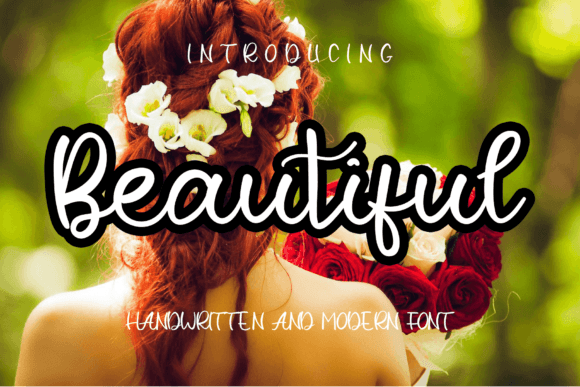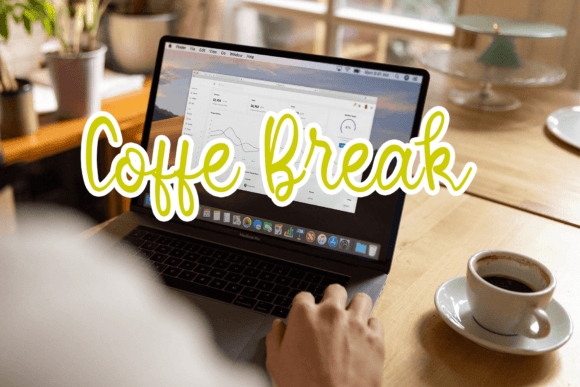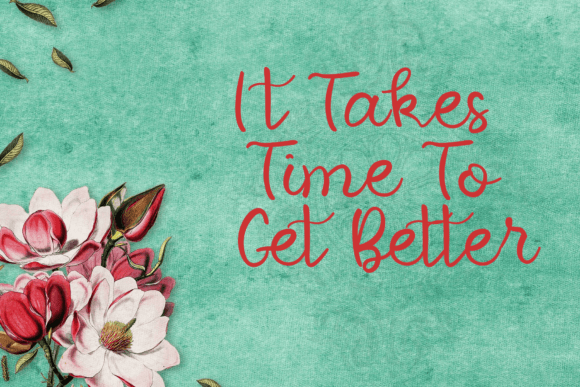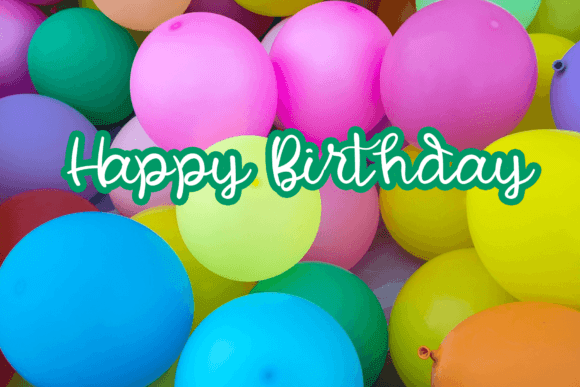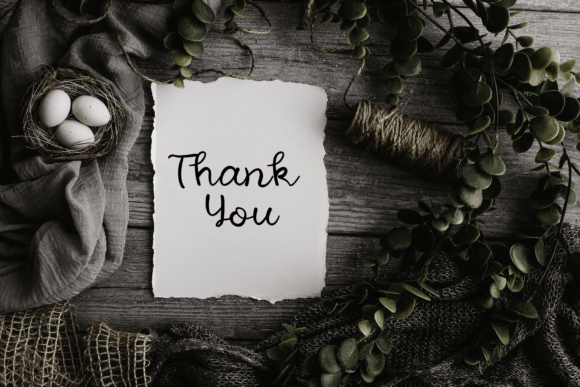
Beautiful Font
About Beautiful Font
“Beautiful” is a bold and beautiful handwritten font that captivates with its elegant touch, making it an excellent choice for a variety of creative projects. With its distinct and timeless style, Beautiful is crafted to add a touch of sophistication to your favorite designs.
The boldness of Beautiful brings a strong and confident aesthetic to your text, making it stand out and leave a lasting impression. The beautiful handwritten elements add an elegant touch, creating a perfect balance between boldness and grace in the font’s design.
Whether you’re working on branding, headlines, or any creative project, Beautiful is versatile enough to adapt to various design needs. Its distinct and timeless style ensures that it remains visually appealing across different contexts.
In summary, Beautiful is more than just a font; it’s a design tool that brings boldness and beauty together in a harmonious blend. Let Beautiful be the choice that adds a touch of elegance and sophistication to your favorite projects, creating designs that are both distinct and timeless.